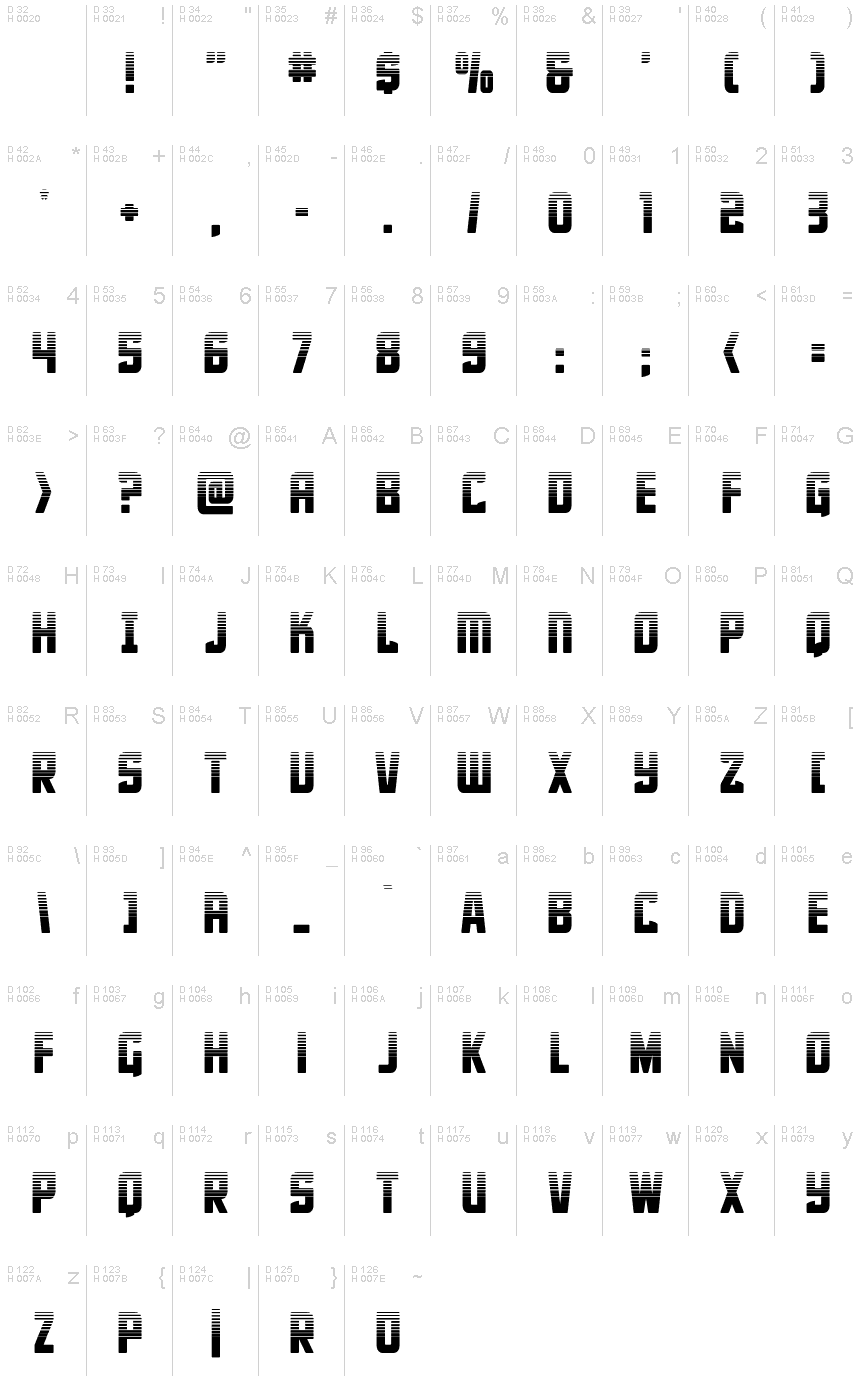
Phantom Storm Halftone
Phantom Storm Halftone is a cutting-edge display font that adds a futuristic flair to any project. Designed by the renowned Iconian Fonts, this semi-bold, condensed typeface boasts a unique techno style that is sure to make your text stand out. Its halftone effect adds an extra layer of depth and texture, perfect for eye-catching designs that demand attention. This font is suited for a wide range of projects such as tech blogs, gaming websites, science fiction book covers or movie posters. Let Phantom Storm Halftone be your go-to font for all things modern and edgy.